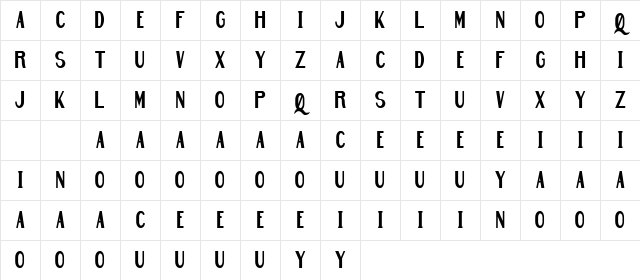
Complete Fabulouscity Demo Bold glyph index. Displaying only characters natively supported by Fabulouscity Demo Bold font.
Fabulouscity Demo is a composed and adaptable typeface that performs quietly and consistently across a wide range of design contexts. Its bold stroke weight gives it real presence on the page.